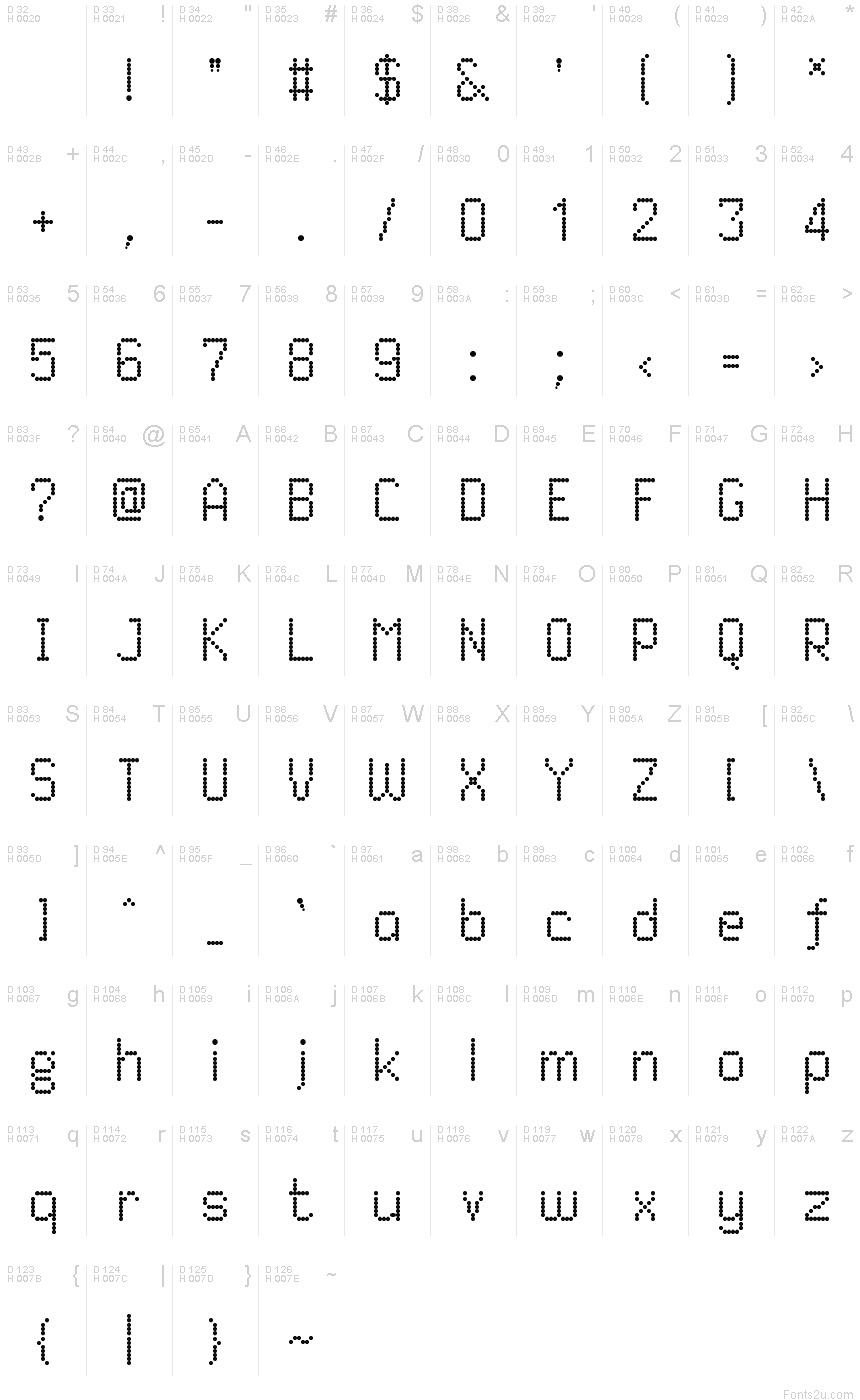
Dited, designed by Oleg Zhuravlev and Jovanny Lemonad of Creatica, is a free dot-matrix display font. Its letters are assembled from evenly sized circular dots, giving the strokes a perforated, light-bulb-like construction. Rounded forms and open gaps give the design an upbeat, almost theatrical pulse.
Early digital displays inspire its clearest uses. The dotted structure recalls illuminated signs, making it useful for event posters and nightclub branding. For merchandise and game interfaces, the lettering can become a field of lights.